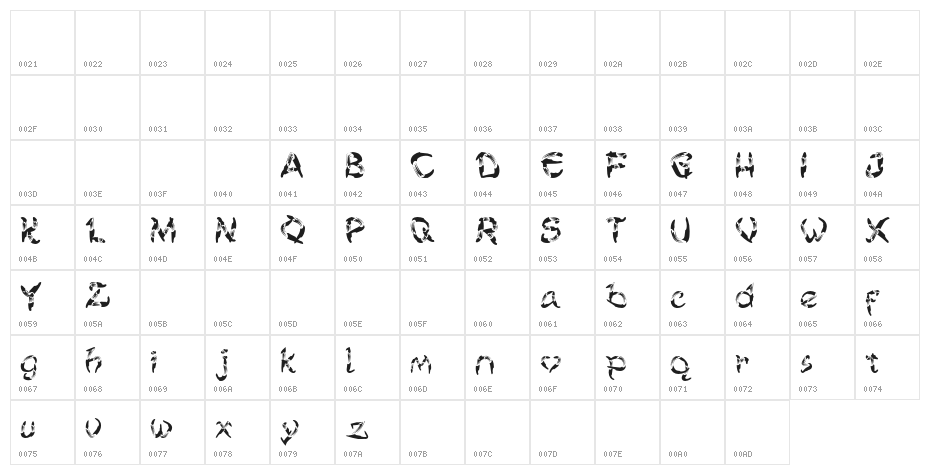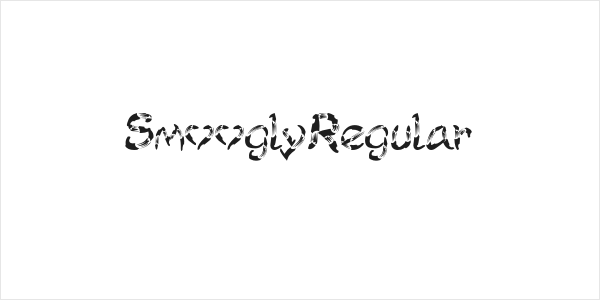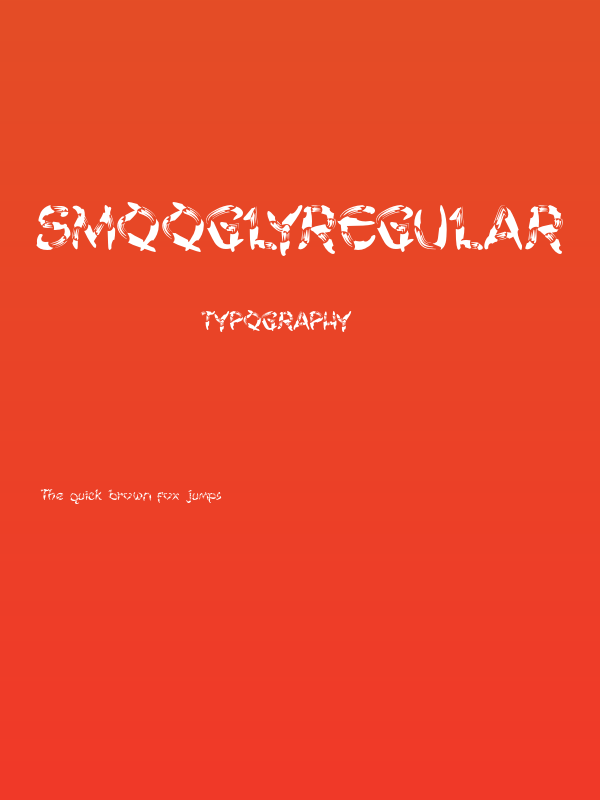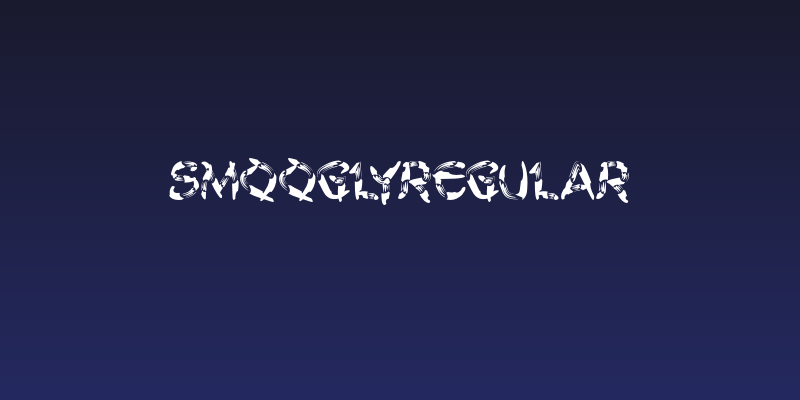
SmooglyRegular Font
SmooglyRegular Description
This font features a highly decorative and artistic style, characterized by its bold, brush-like strokes that create a dynamic and energetic appearance. The letters are crafted with a sense of movement, as if painted with a swift, confident hand. Each character exhibits a unique blend of thick and thin lines, adding a sense of depth and texture. The overall design is both playful and sophisticated, making it suitable for creative and expressive projects. The font's distinctive style is perfect for capturing attention and conveying a sense of creativity and flair.
| Proposed Projects | Ideal for artistic posters, creative branding, eye-catching headlines, and expressive invitations. |